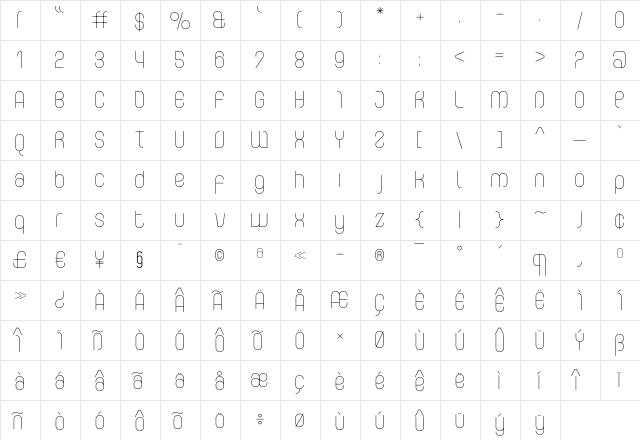
Curvature-Fine Regular
Design Context for Curvature-Fine Typeface
Curvature-Fine offers clean, dependable letterforms without strong stylistic allegiance, making it a practical choice for designers who need flexibility.
Pro Tip: Use Curvature-Fine in both headline and body roles to test its range before committing to a single application.